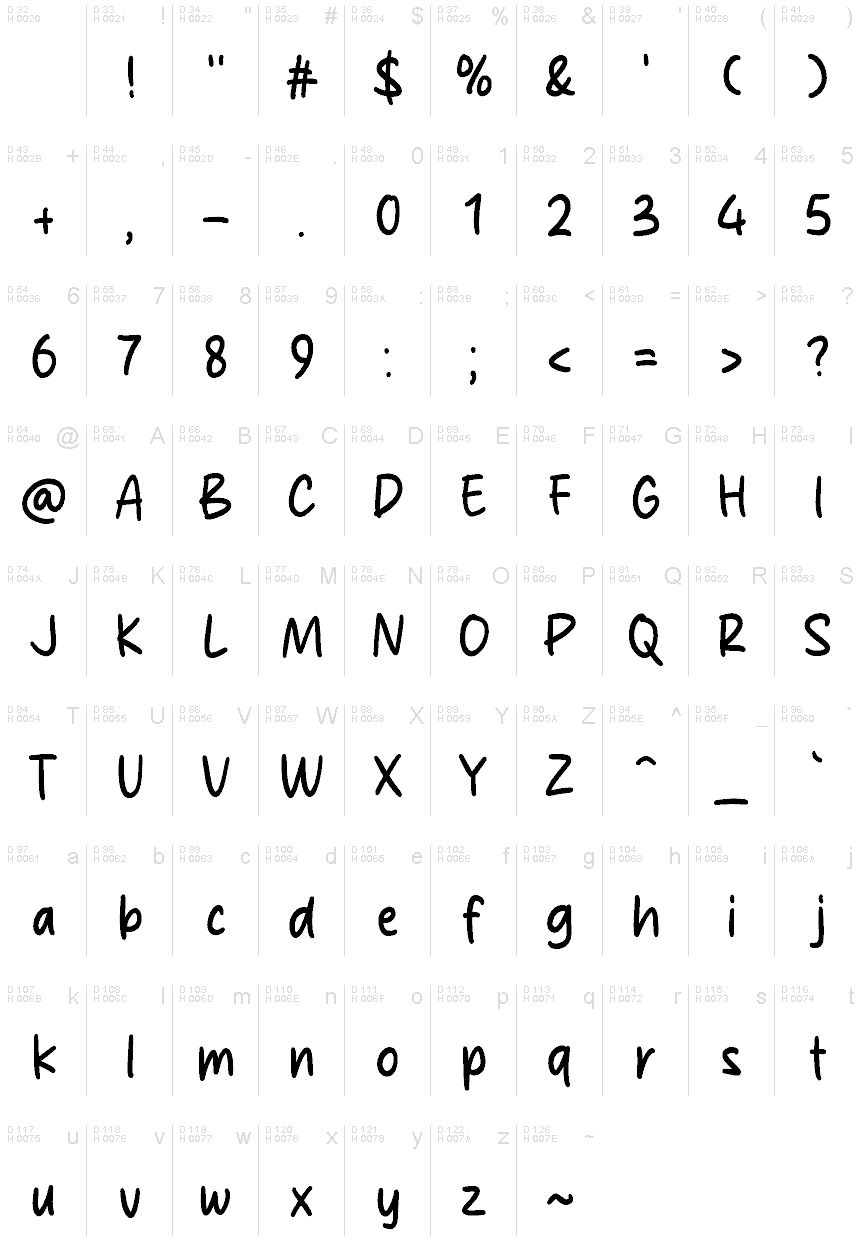
Paradise Cloud
Paradise Cloud is a free handwritten typeface designed and shared by MJType. It is a gorgeous font characterized by its smooth shapes and soft curves. It reminds us a lot of the lovely fonts found in children books, the ones that make you want to read the stories more than ever and enjoy a peaceful afternoon.
Paradise Cloud is ideal for both small and large texts, so you can use it for your blog posts, wedding invitations, greeting cards, packaging and product design, and books or simply for casual texts and social media posts.